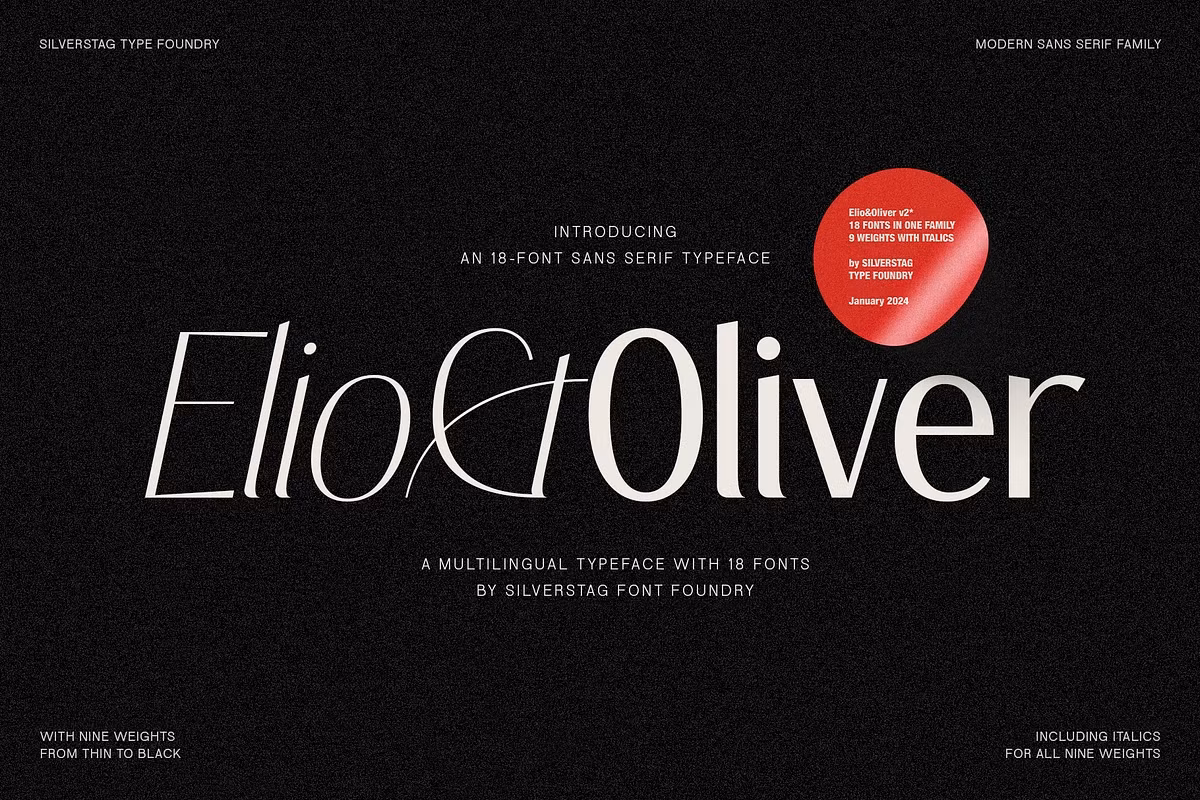
Elio & Oliver Font Free Download is a versatile and comprehensive 18-font typeface bundle that includes a variety of styles and weights, offering both elegance and modern flair. This typeface is perfect for everything from high-end branding to editorial design, packaging, web design, and more.
With its multiple styles ranging from clean sans-serif to stylish serif, Elio & Oliver gives you flexibility for various design applications. It includes uppercase and lowercase letters, numerals, punctuation, and stylistic alternates, allowing you to craft cohesive, professional typography that suits any occasion or brand.
Whether you're building a sleek brand identity, designing a refined editorial layout, or creating unique digital content, Elio & Oliver Font Free Download offers the complete toolkit for your design projects. Test it in personal or mockup projects, and be sure to obtain the proper license for commercial use. Add sophistication and flexibility to your typography with this comprehensive 18-font typeface bundle.